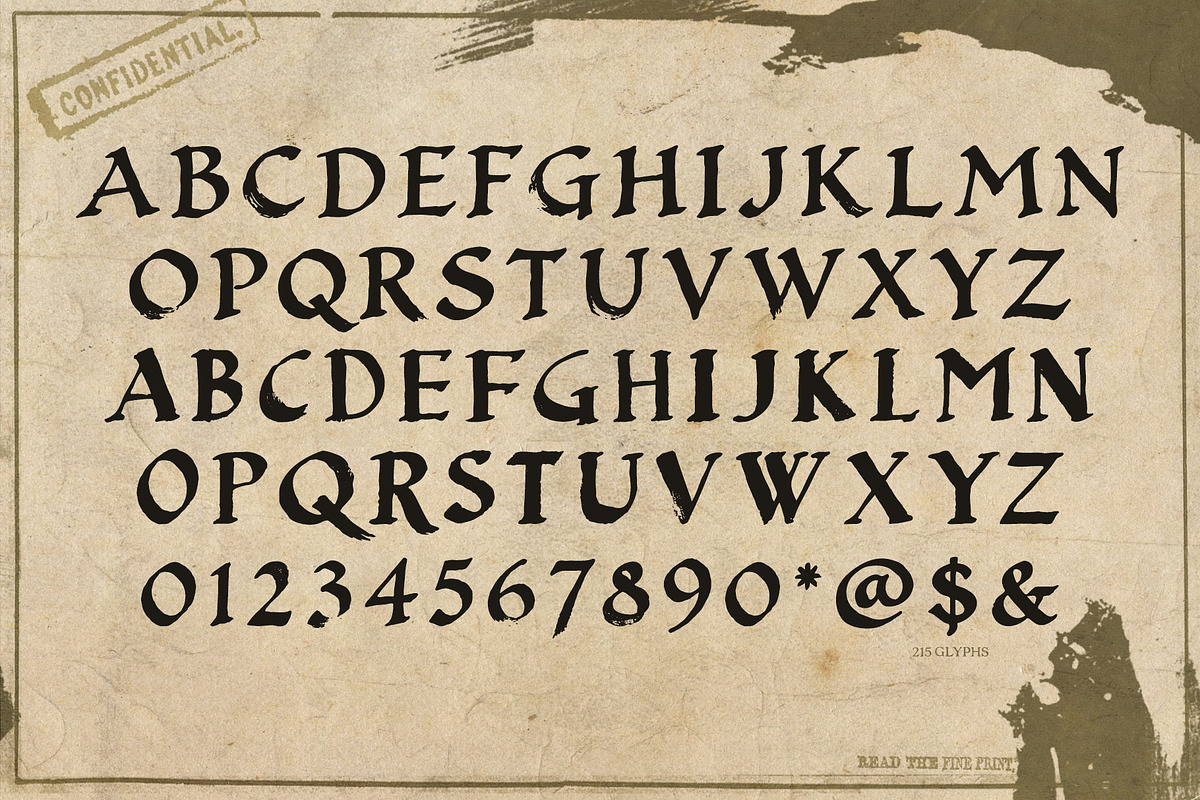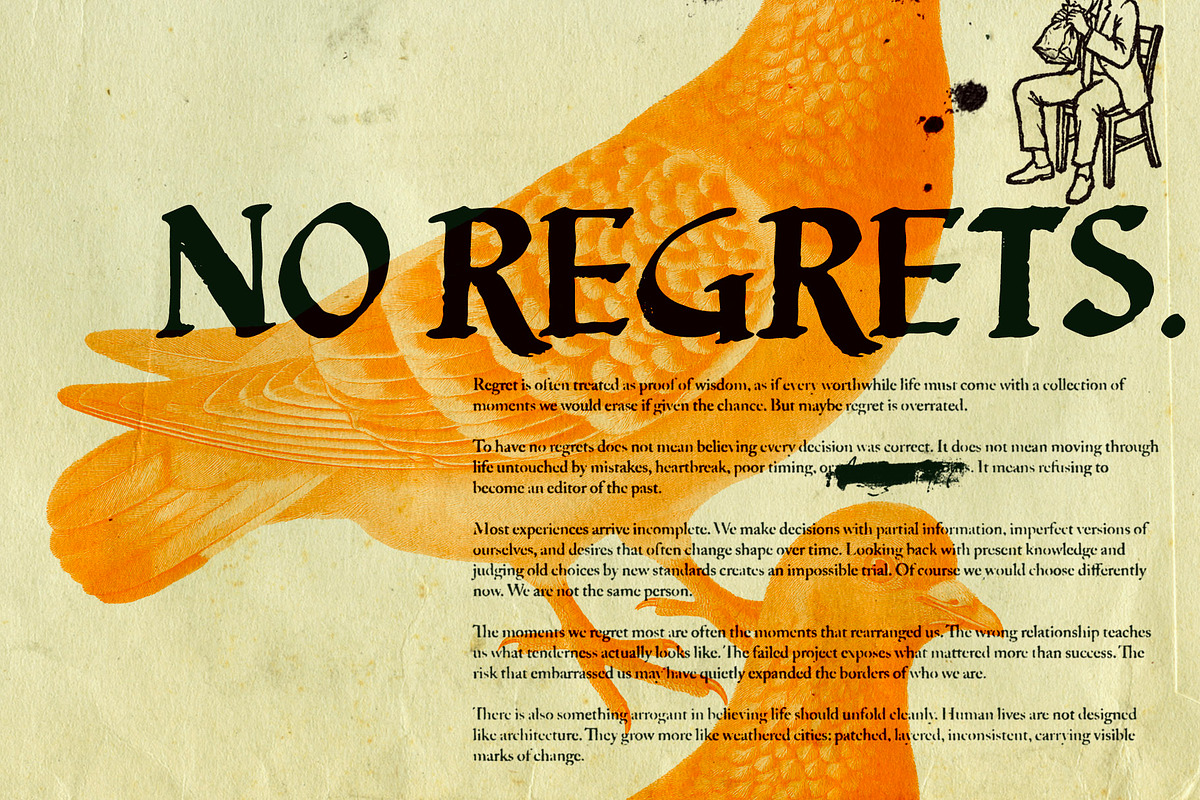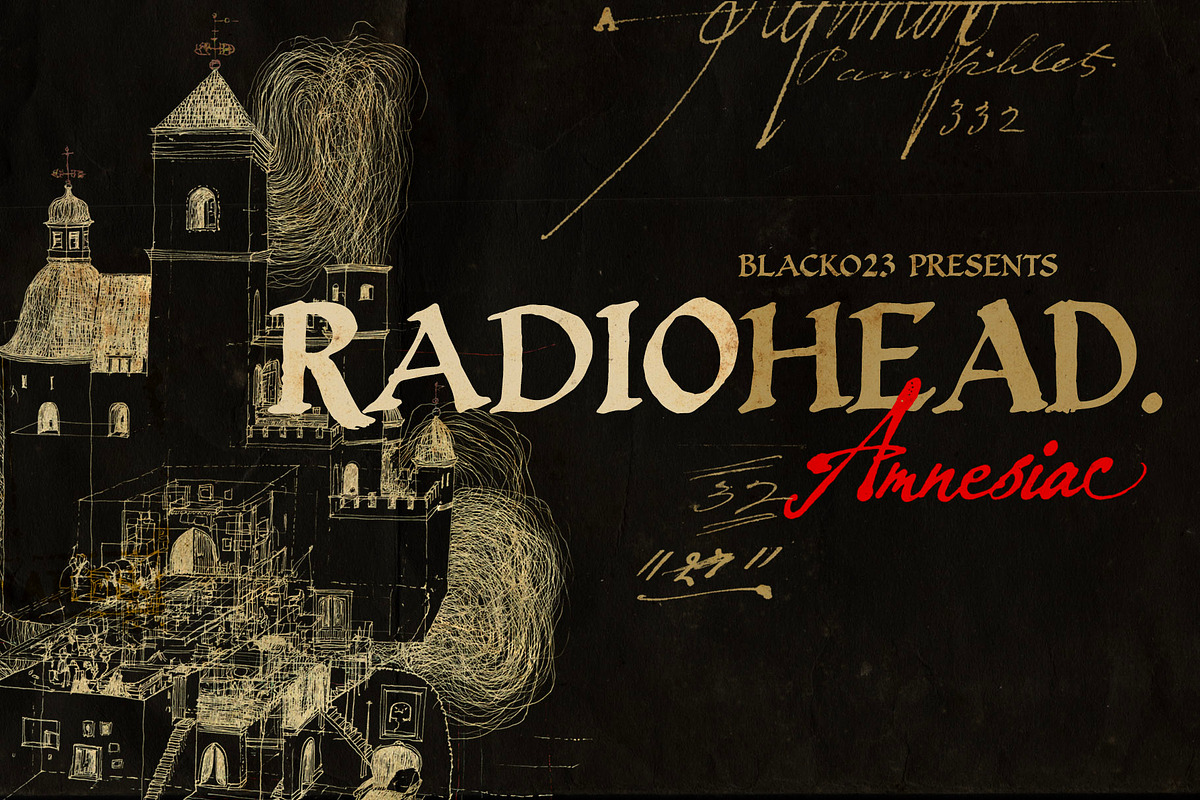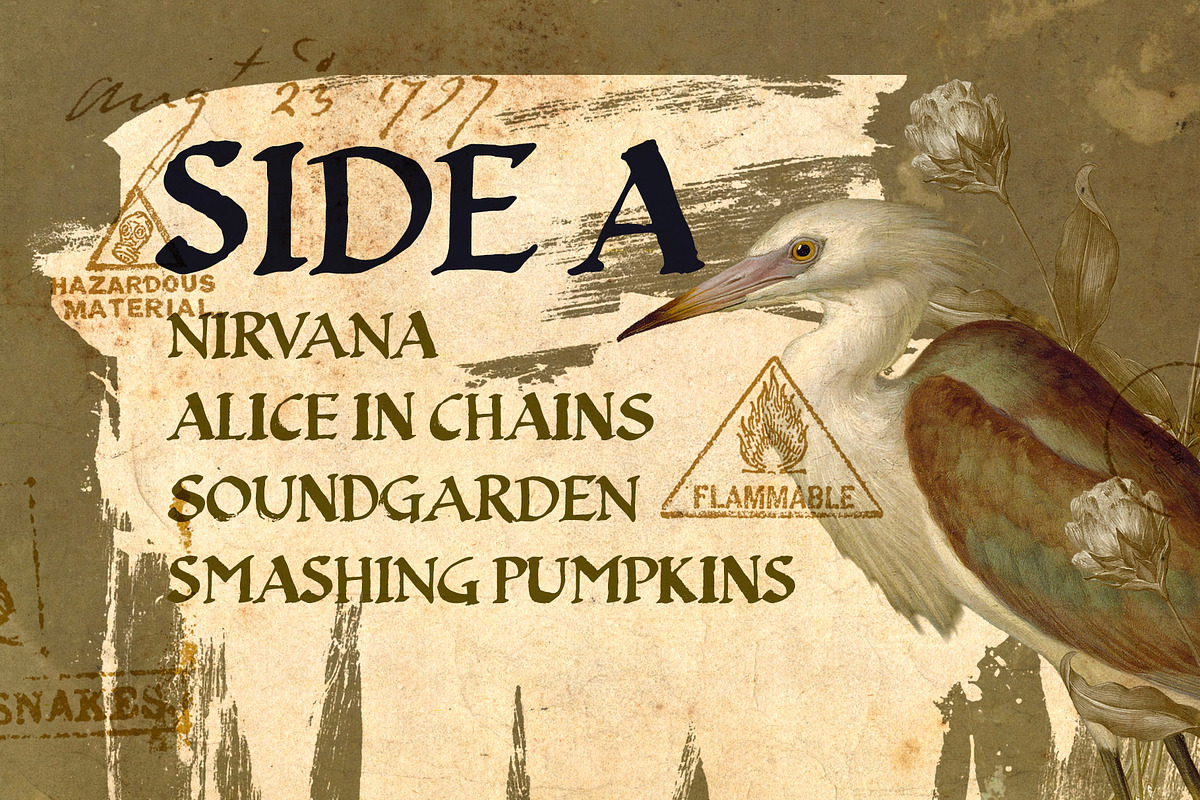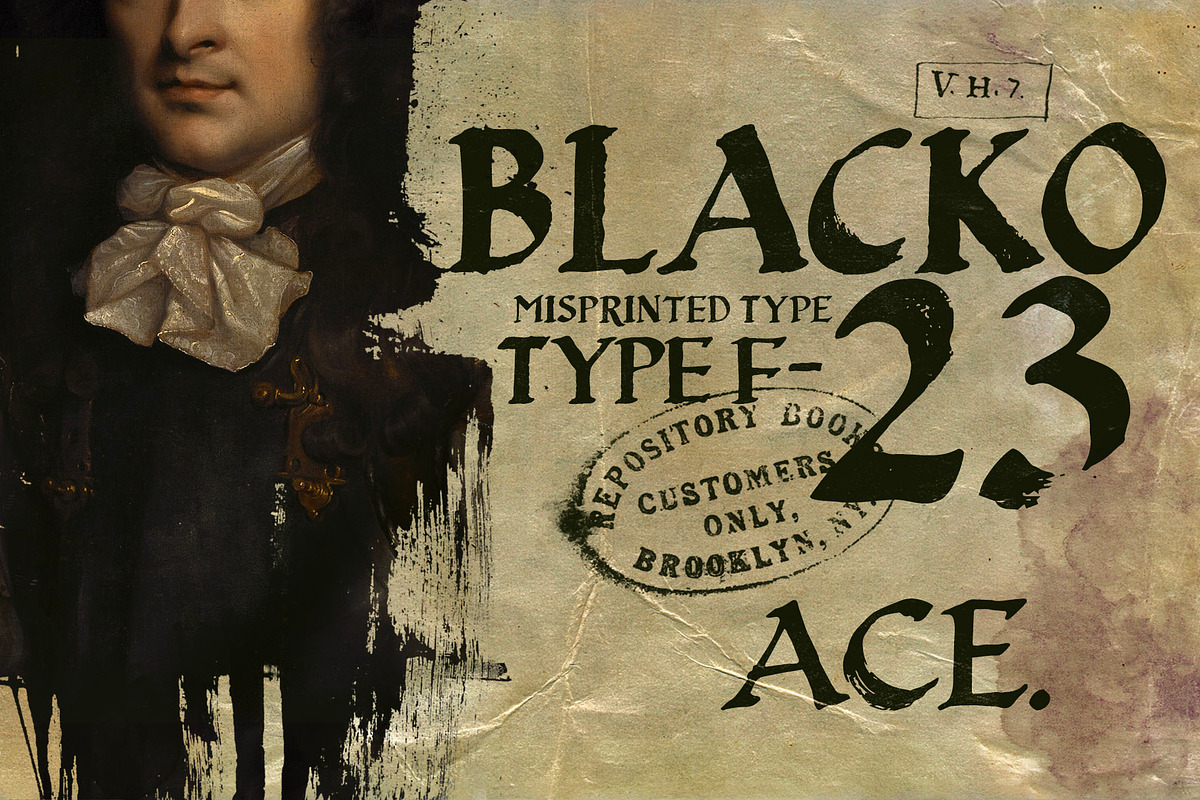
Blacko 23
Blacko23 is a vintage display typeface inspired by the typography found in old books, where carefully crafted letterforms carried the subtle traces of a calligraphic pen. Its irregular contours, subtle imperfections, and brush-like textures give every character a handcrafted feel, as if each letter had acquired a little more personality over time. The result is a typeface that feels bold, authentic, and unmistakably human.
The font includes two uppercase alphabets, encouraging you to alternate characters and create compositions with a natural rhythm while avoiding repetitive letterforms. The font also includes 215 glyphs, making it a versatile choice for expressive typography.
Whether you're designing album covers, magazines, posters, book covers, branding, or editorial layouts, Blacko 23 brings together the warmth of vintage printing with an edgy, contemporary attitude.